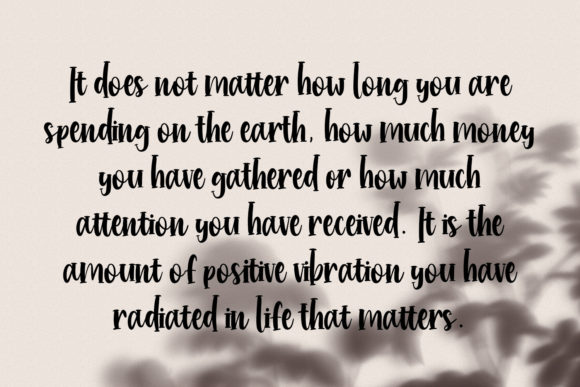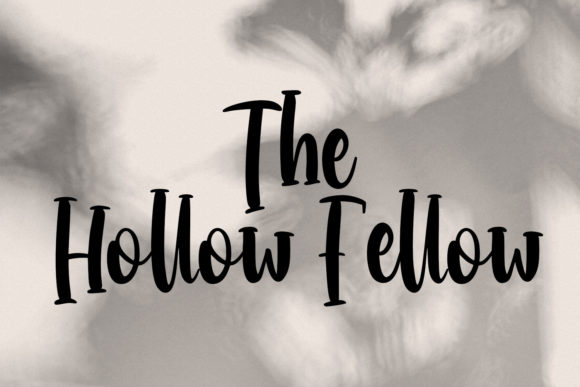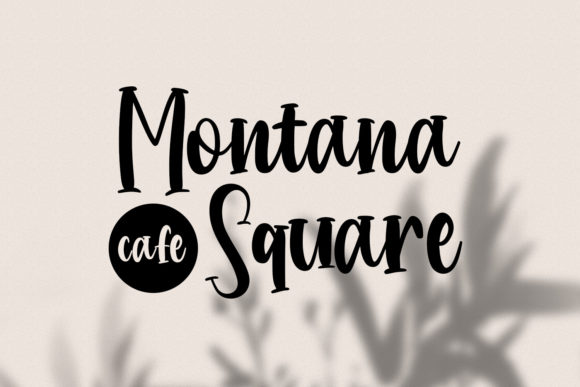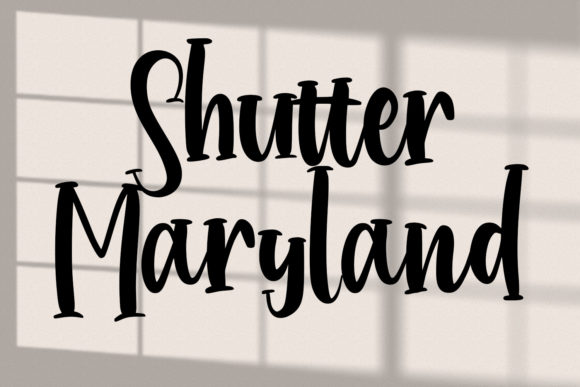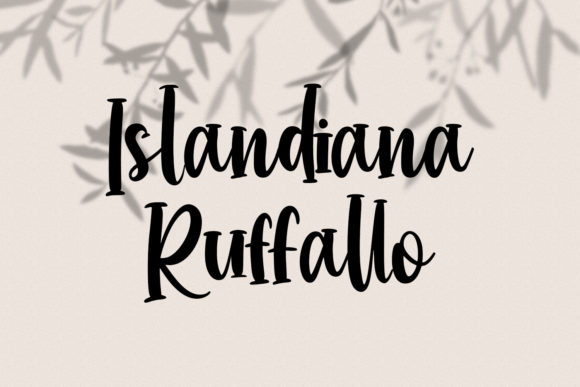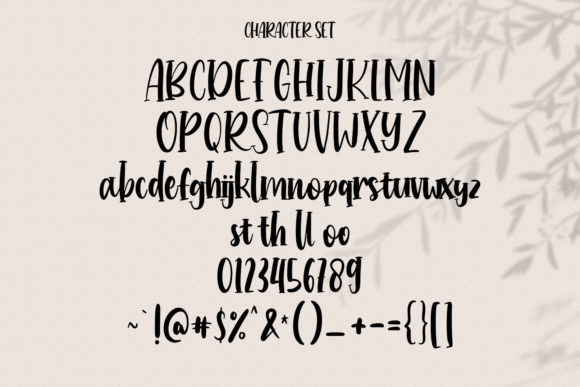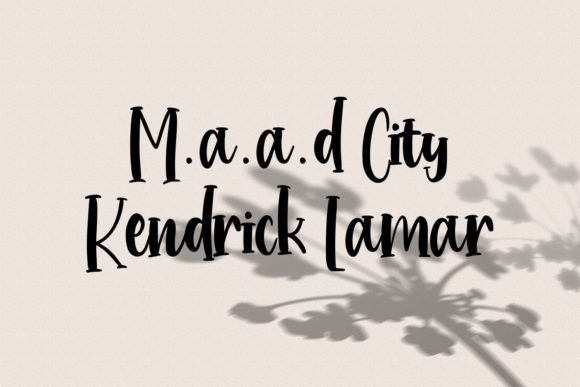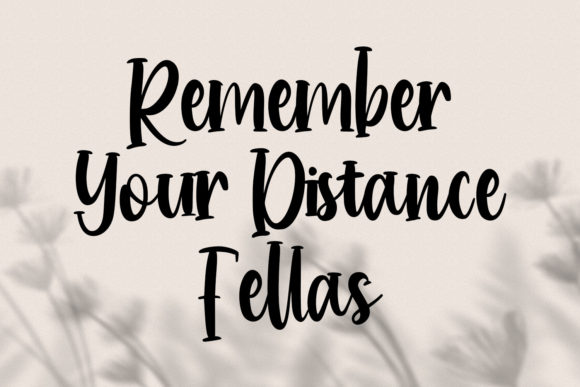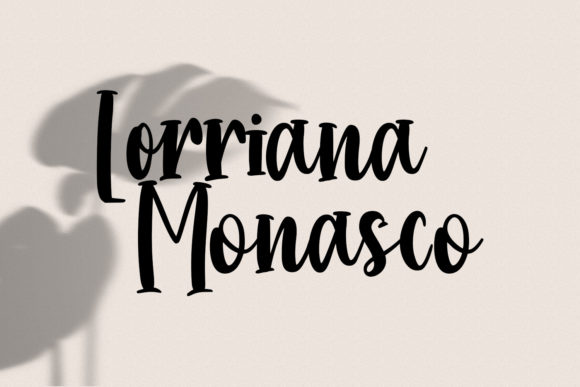
Hollowcoves Handwritten Display Font Font
About Hollowcoves Handwritten Display Font
Hollowcoves is a handwritten display font. This font is suitable for logo design, social media, movie titles, and books titles. Make a stunning work with Hollowcoves font.